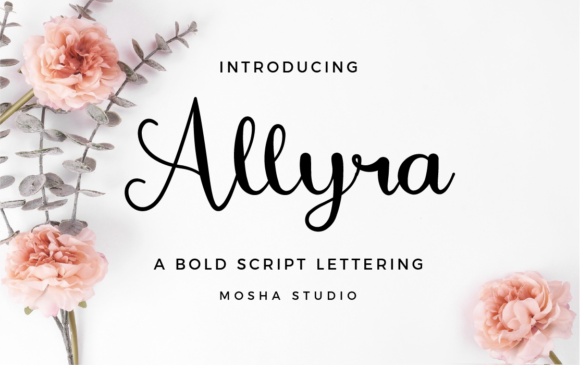
The Allyra Font: A Delicate Script to Elevate Your Designs
I still remember the frustration of working on a project, pouring my heart and soul into every detail, only to be held back by one thing: the font. My client wanted something elegant, something that would make their brand stand out, but I just couldn’t seem to find the right fit. That was until I stumbled upon the Allyra font. ✨
Allyra is a lovely and delicate script font that exudes elegance and class. This font was particularly crafted for those who need a beautiful and refreshing look to their designs. In this article, we’ll dive into the world of Allyra, exploring its features, how to use it, and what makes it so special.
An Honest Review of Allyra
• ✨ Elegant and refined: Allyra has a sophisticated feel that’s perfect for high-end designs.
• ✅ Versatile: Whether you’re working on a logo, invitation, or social media graphic, Allyra adapts seamlessly.
• 💫 Beautifully crafted: The attention to detail in this font is impressive, with subtle nuances that make it stand out.
While Allyra is an amazing font, there are a few things to keep in mind: 🤔
• ⚠️ Limited use in body text: Allyra is best suited for headlines, titles, and short paragraphs. Its delicate nature can make it difficult to read in longer blocks of text.
• ⚠️ May require adjustments for non-English languages: As with any script font, some characters may need tweaking to ensure proper kerning and spacing.
One of the standout features of Allyra is its support for OpenType features and glyphs. These allow you to customize your text with:
• Stylistic alternates: Swap out characters for alternative designs.
• Glyphs: Access special characters, such as ligatures and ornaments.
By using these features, you can add an extra layer of creativity and sophistication to your designs.
The Story Behind Allyra
Allyra was designed with one goal in mind: to create a beautiful, elegant script font that would make designs stand out. Inspired by classic calligraphy and modern typography, Allyra’s creator aimed to craft a font that would be both refined and versatile.
Q: What type of projects is Allyra best suited for?
A: Allyra is perfect for projects that require an elegant, sophisticated look, such as logos, invitations, social media graphics, and more.
Q: Is Allyra suitable for body text?
A: While Allyra is a beautiful font, it’s best suited for headlines, titles, and short paragraphs. Its delicate nature can make it difficult to read in longer blocks of text.